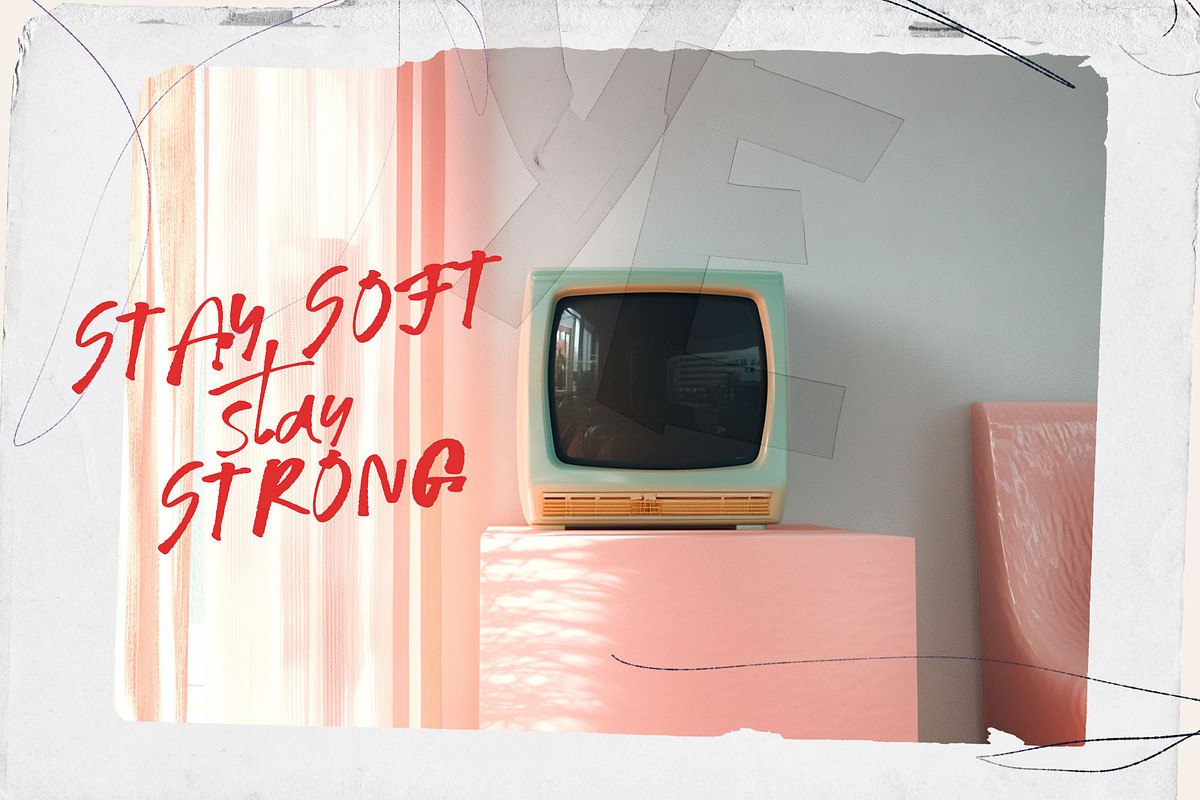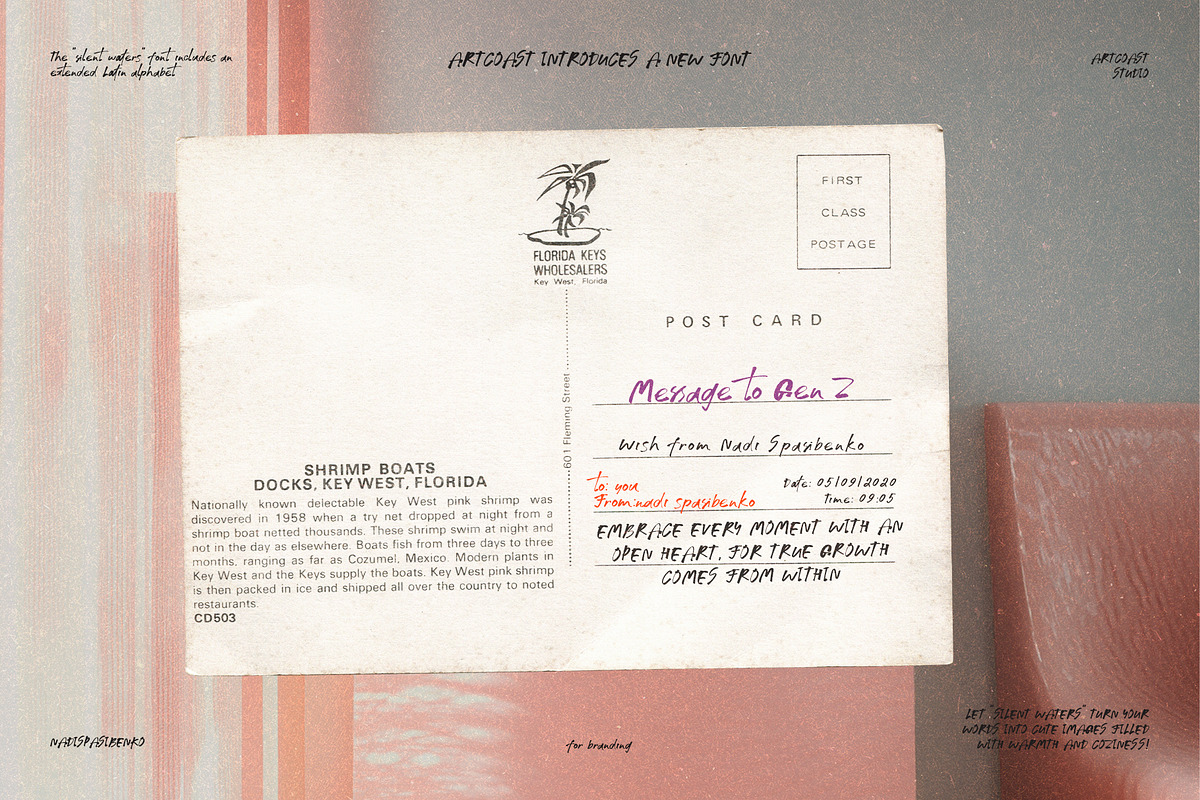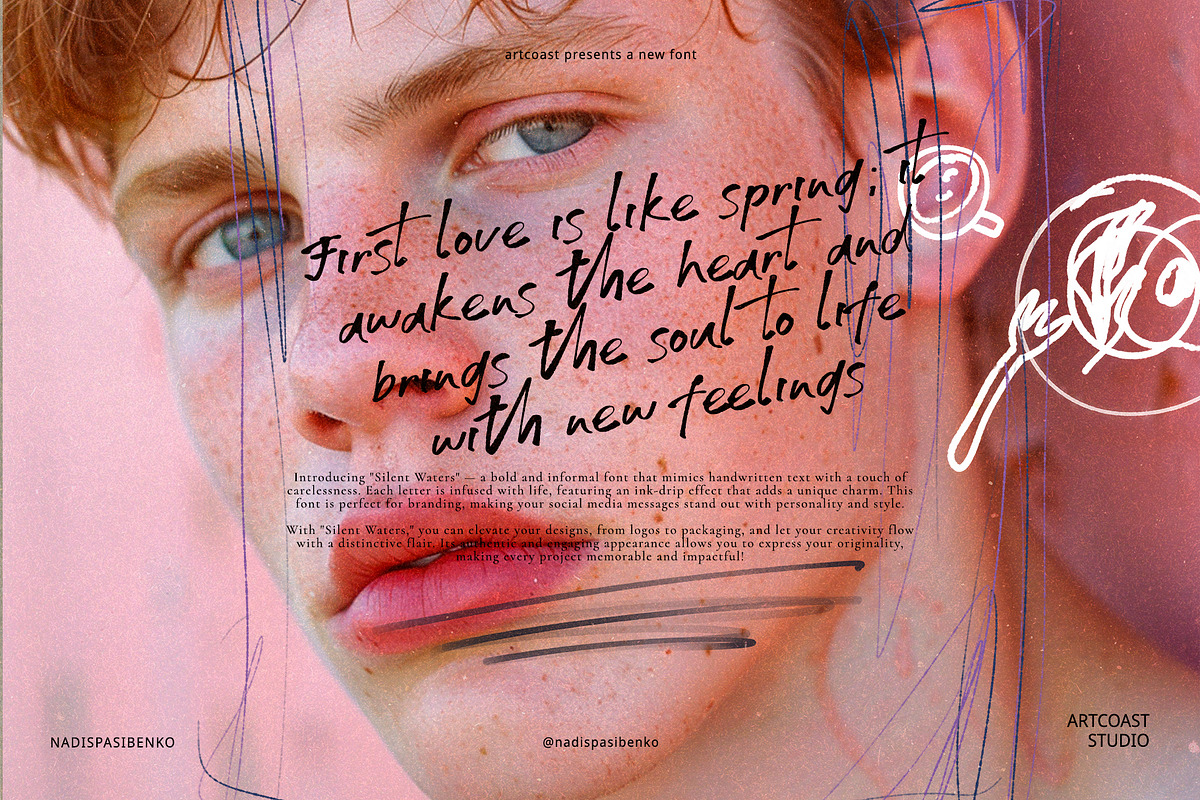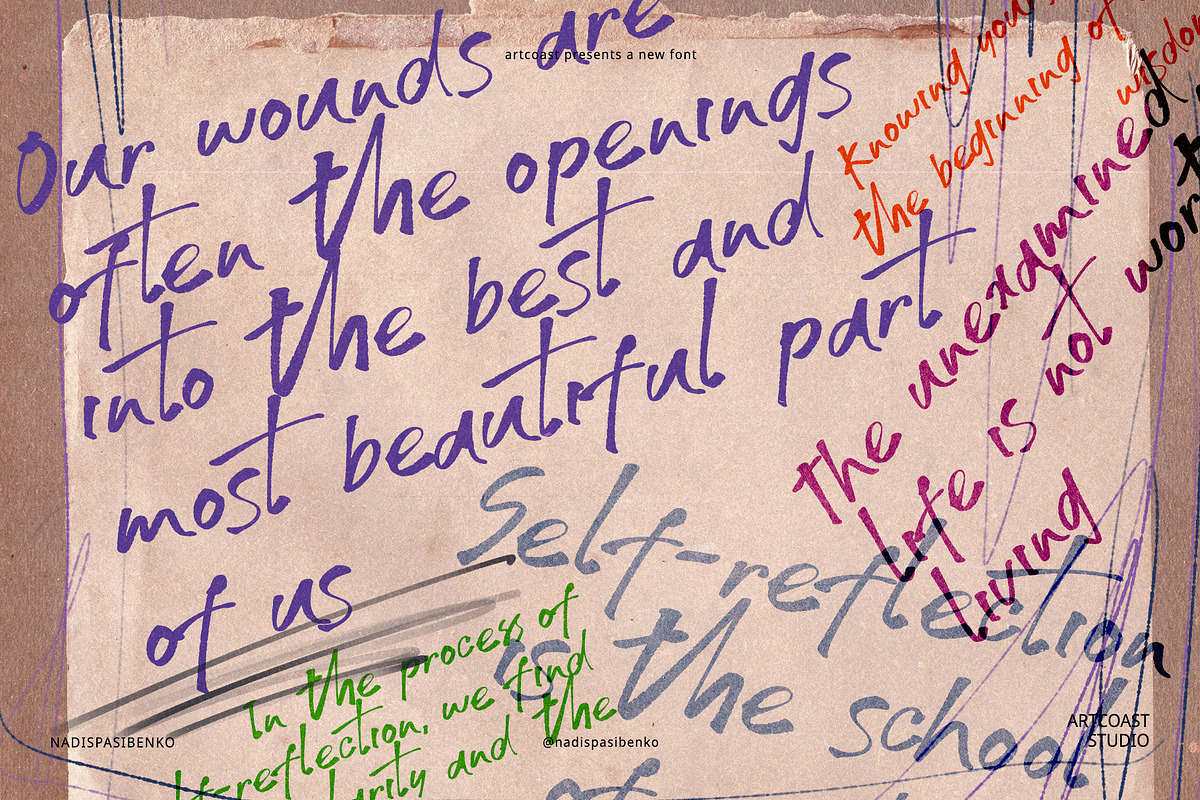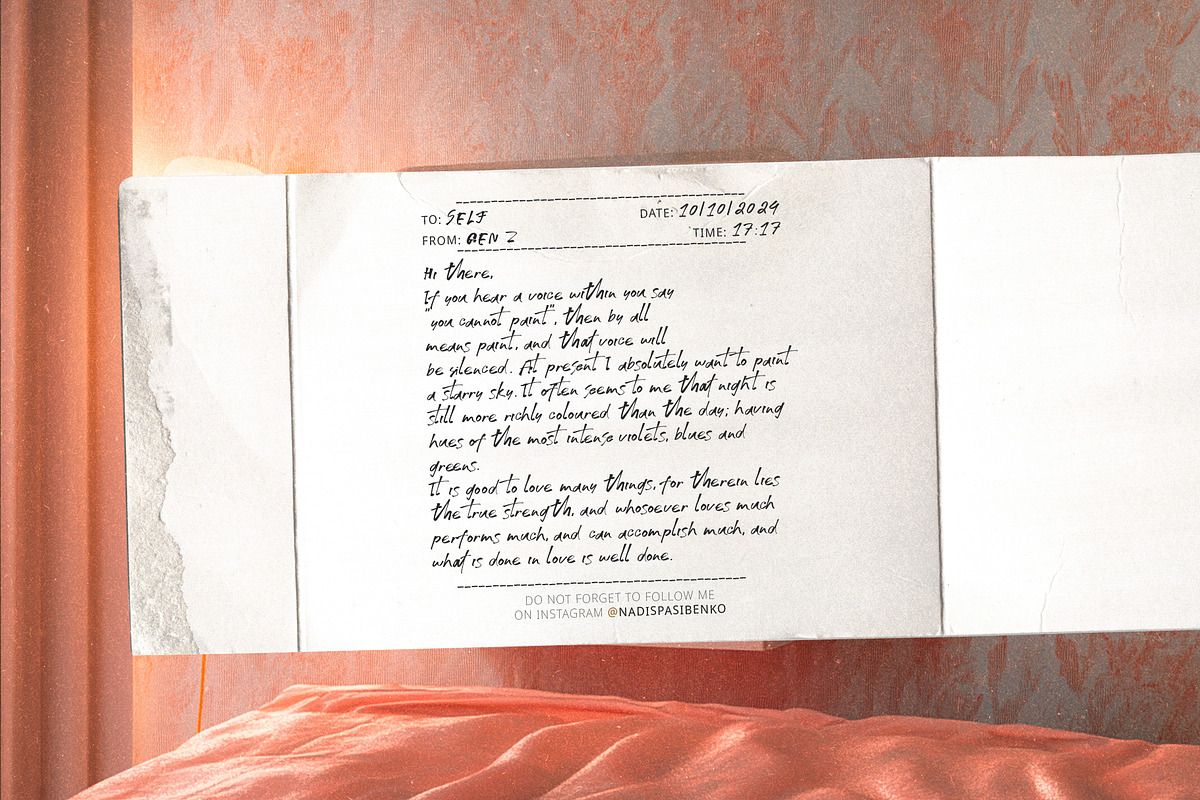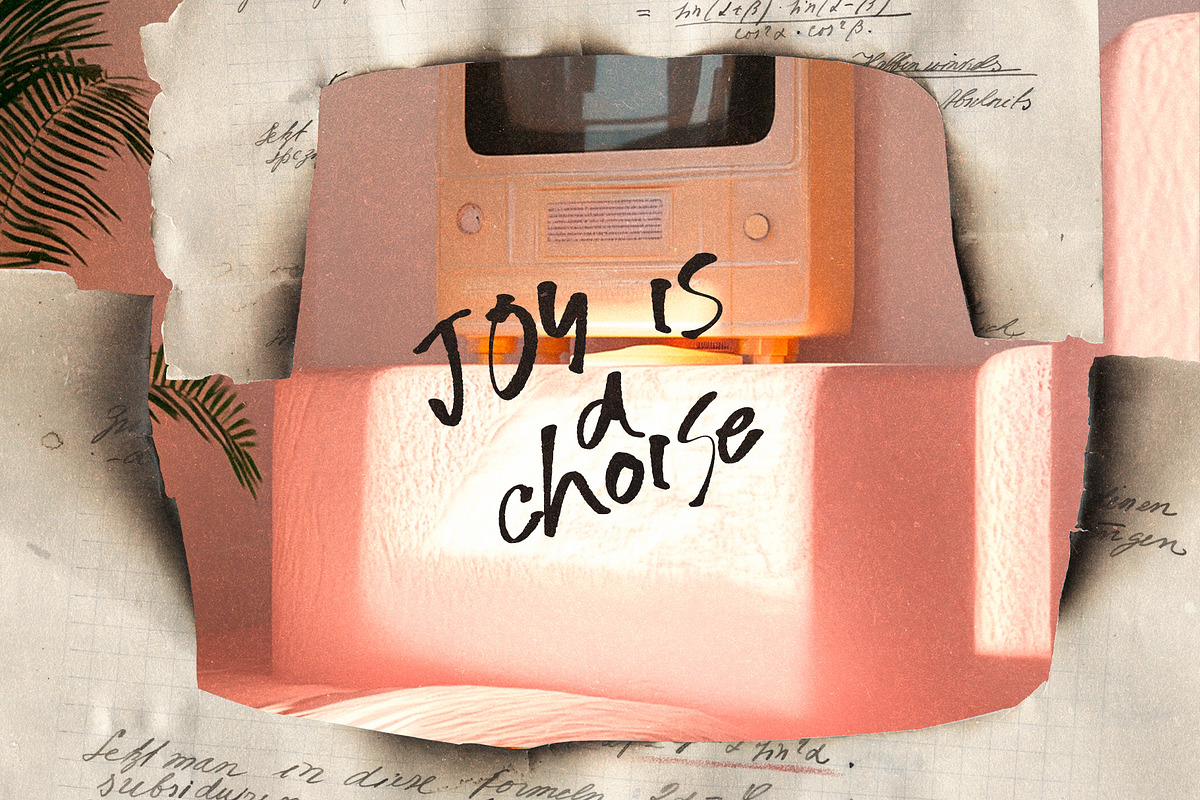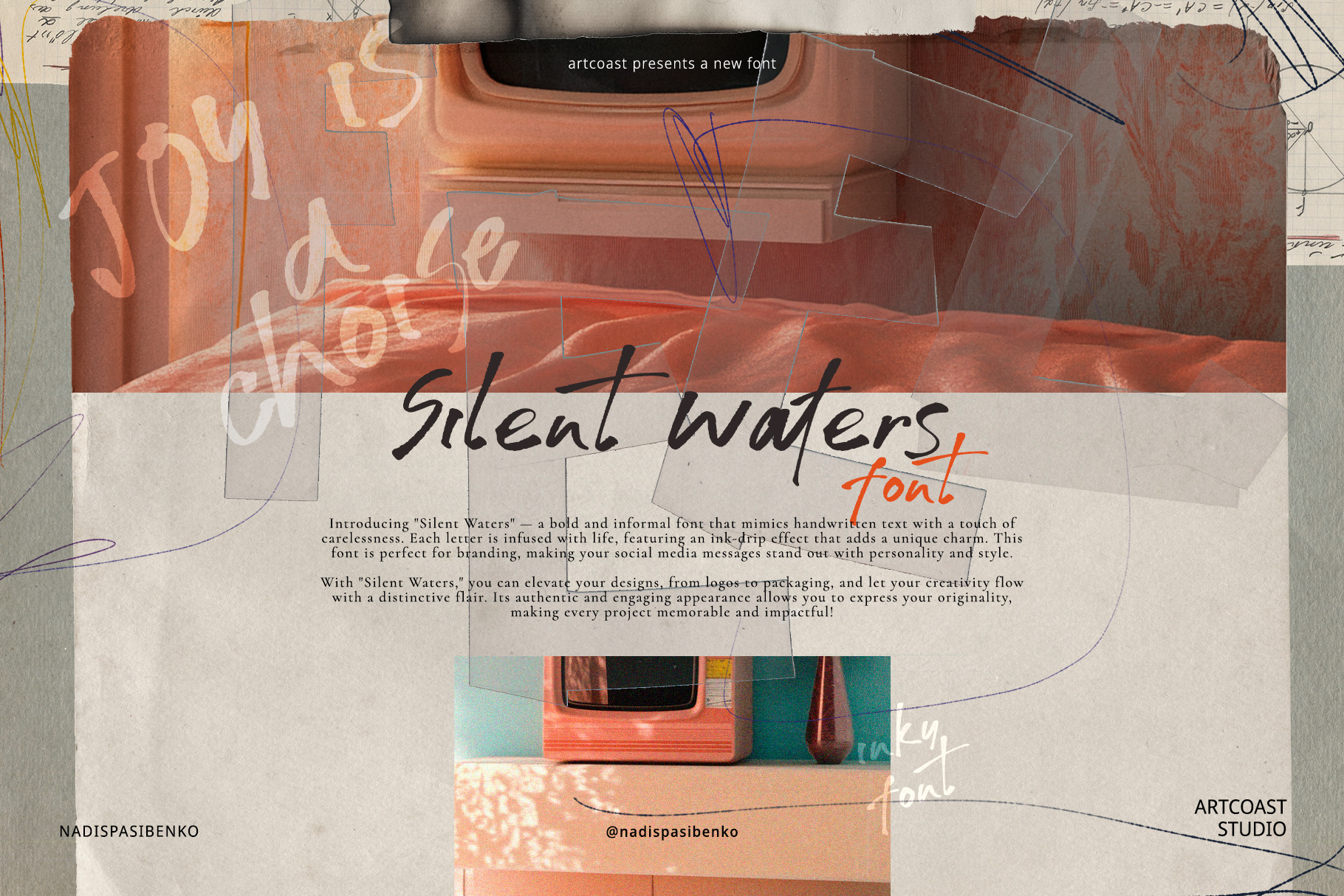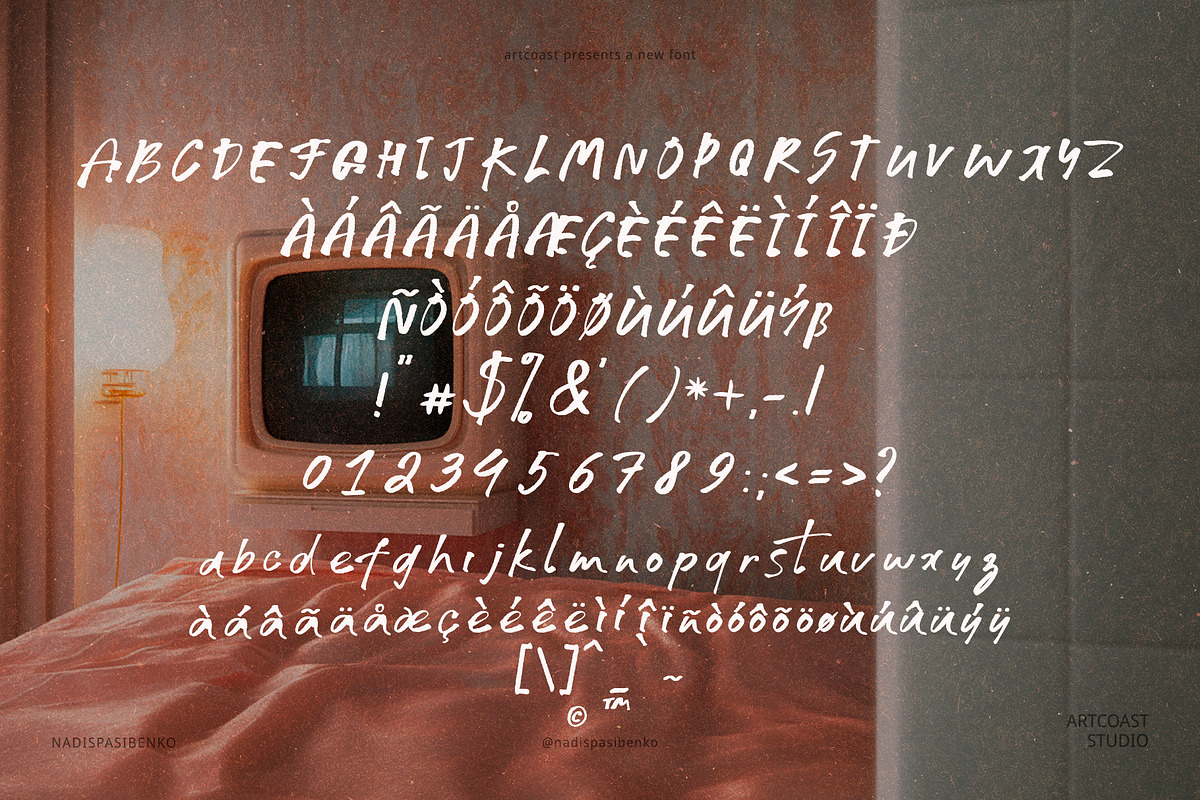
Elegant Inky Font - Silent Waters
Introducing "Silent Waters" — a bold and informal font that mimics handwritten text with a touch of carelessness. Each letter is infused with life, featuring an ink-drip effect that adds a unique charm. This font is perfect for branding, making your social media messages stand out with personality and style.
With "Silent Waters," you can elevate your designs, from logos to packaging, and let your creativity flow with a distinctive flair. Its authentic and engaging appearance allows you to express your originality, making every project memorable and impactful!